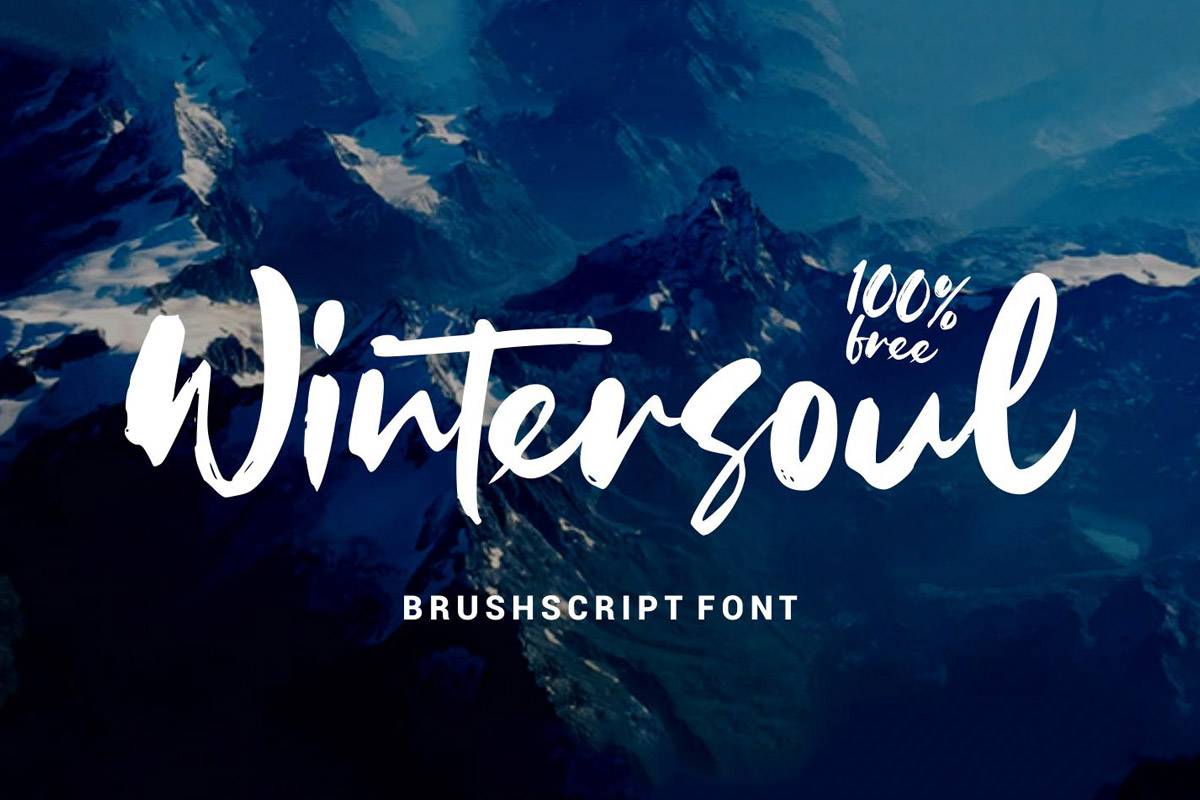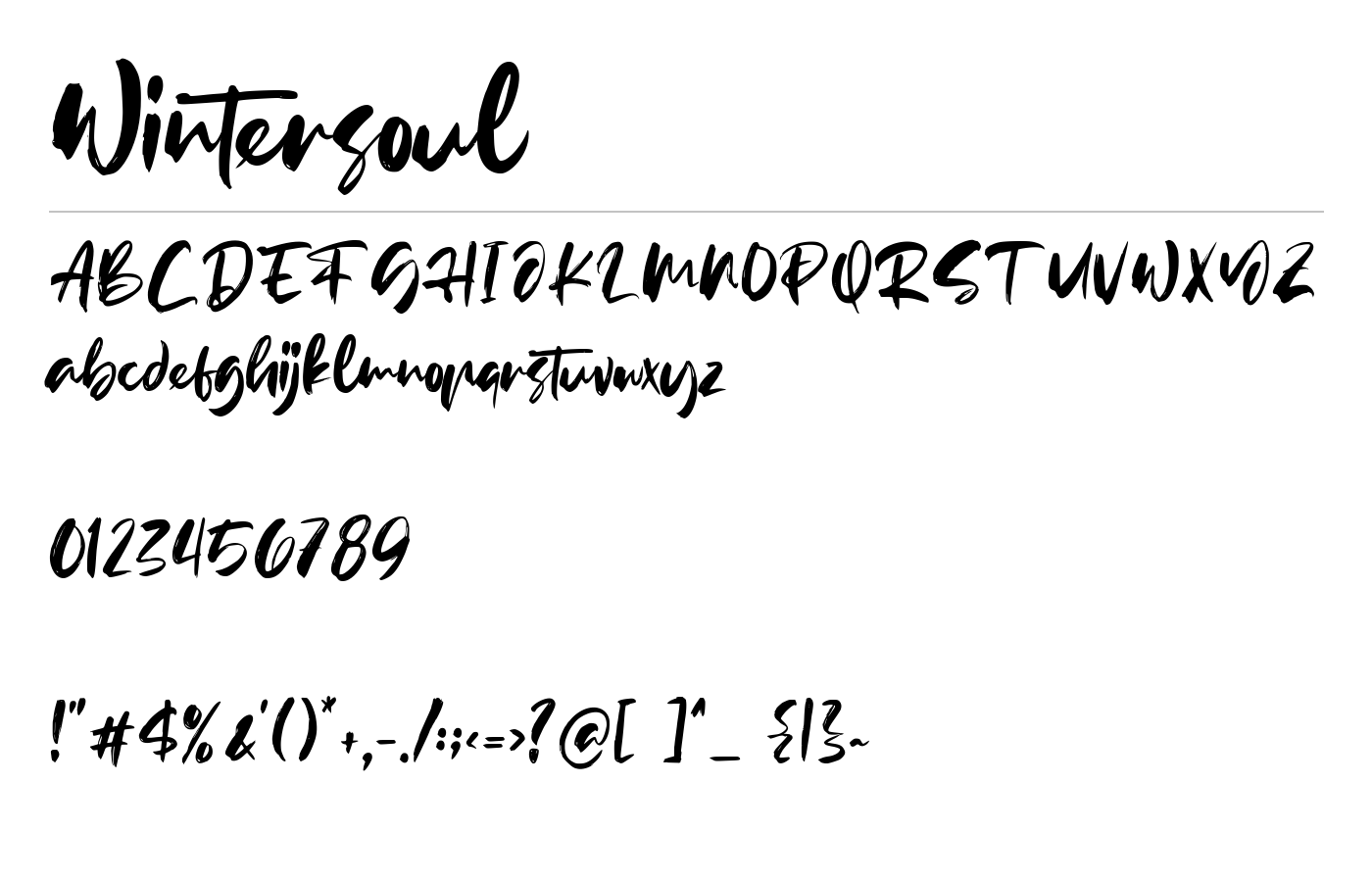
Wintersoul is a bold, expressive script font with a natural, hand-painted feel characterized by thick and textured brush strokes. Its lively, informal style makes it perfect for creative projects, branding, and expressive headlines where a personal and artistic touch is desired. This font works well in designs that want to convey energy, warmth, and authenticity.
Wintersoul
| Font family | Wintersoul |